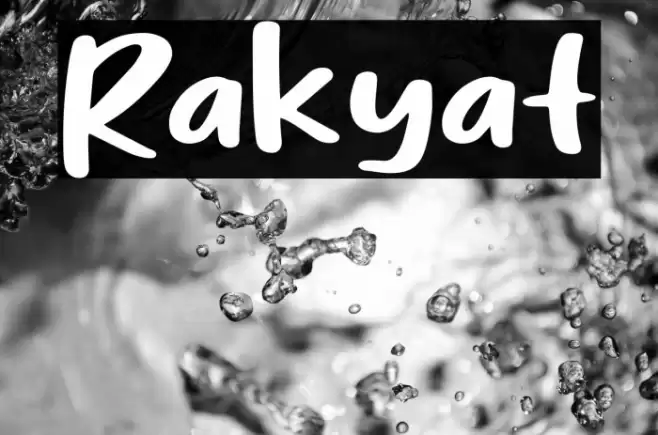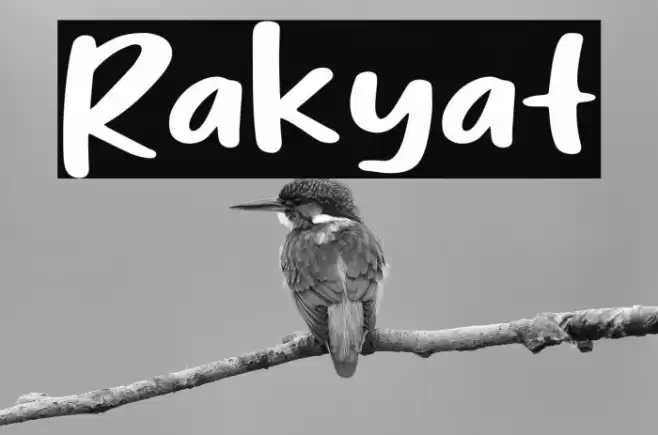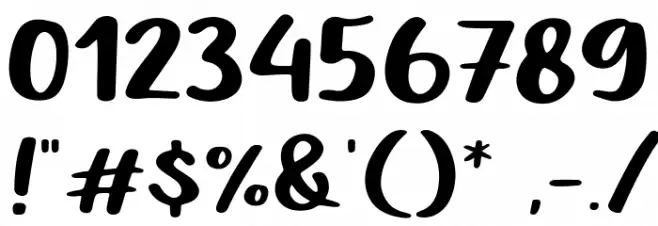
Rakyat Font
Rakyat Description
This font features a bold and playful handwritten style, characterized by its smooth curves and slightly irregular strokes that give it a casual and friendly appearance. The letters are well-rounded and maintain a consistent thickness throughout, contributing to its approachable and informal vibe. The numerals and special characters are designed to match the playful nature of the alphabet, making it suitable for creative and fun projects. Its legibility is maintained despite the informal style, making it versatile for various design needs.
A bold, playful handwritten font with smooth curves and consistent thickness from Uncategorized fonts.
- Font: Rakyat
- Proposed Projects: Ideal for children's books, greeting cards, playful branding, and social media graphics.
- Overall Style: Casual
- Use Case: Headlines, Logos, Social Media